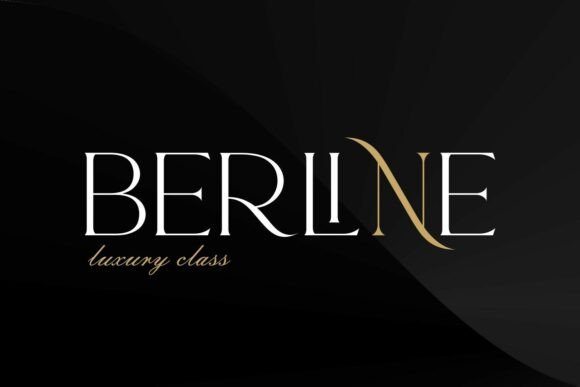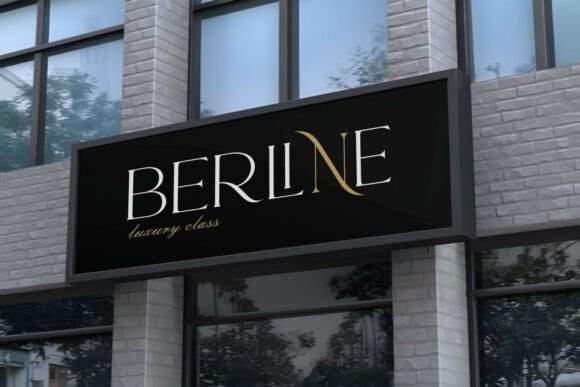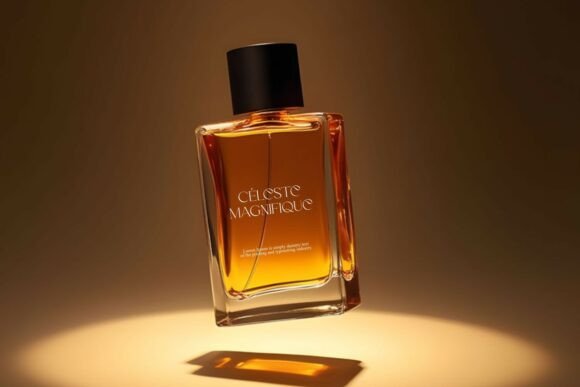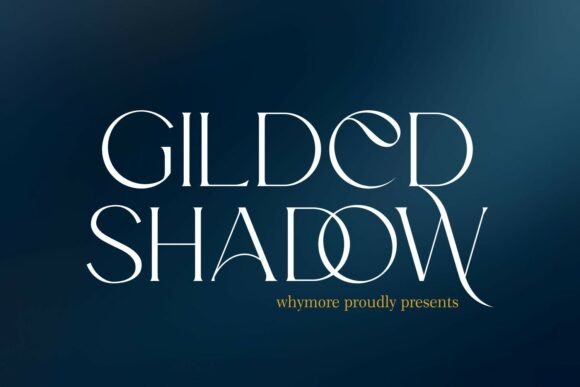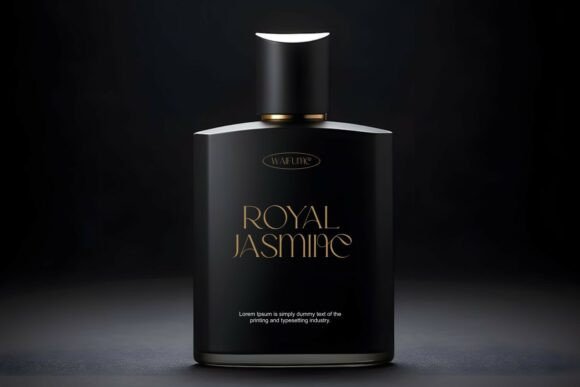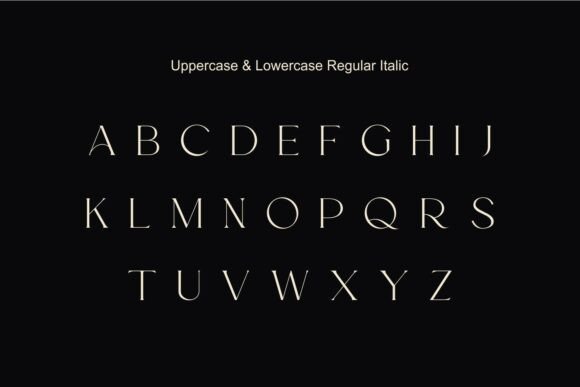
Introduction to Murise Font
Murise is a refined luxury serif font crafted to deliver elegance, sophistication, and modern class in every design.
With its high-contrast strokes, graceful curves, and distinctive letterforms, Murise brings a premium aesthetic perfect for high-end branding Designed for designers who seek timeless beauty and editorial excellence, this font works beautifully in fashion branding, luxury logos, magazine layouts, product packaging, and upscale marketing materials.
Key Features of Murise Font
Why Choose Murise Font?
Murise Font offers exceptional quality and versatility, making it a valuable addition to your design toolkit. Whether you’re creating for personal projects or commercial use, Murise Font delivers professional results.